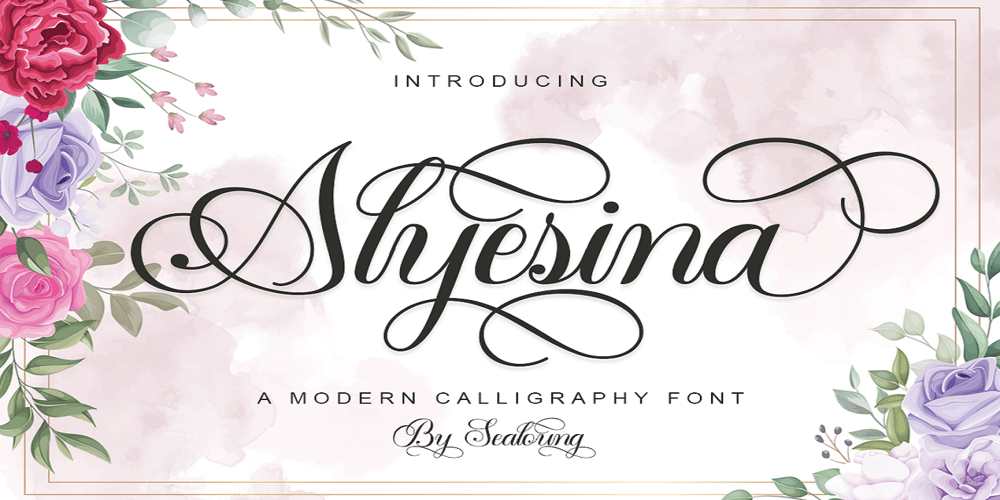
Alyesina Font Family was designed by Saiful Anwar and published by Sealoung. Alyesina contains 1 styles and family package options. Alyesina is a very luxurious elegant calligraphy font for your classy projects that is complemented by a pretty and stylish alternative. This font includes alternatives, style sets, ligatures, swashes and multilingual support with the Pua encode opentype feature. In some glyphs it has a pretty stylistic alternative. Perfect for startup projects, wedding invitations, logos, packaging, quotes, branding, web, blogs, etc.FEATURES :UppercaseLowercaseNumberPunctuationMultilingualPUA EncodeOpentypeStylistic Alternate